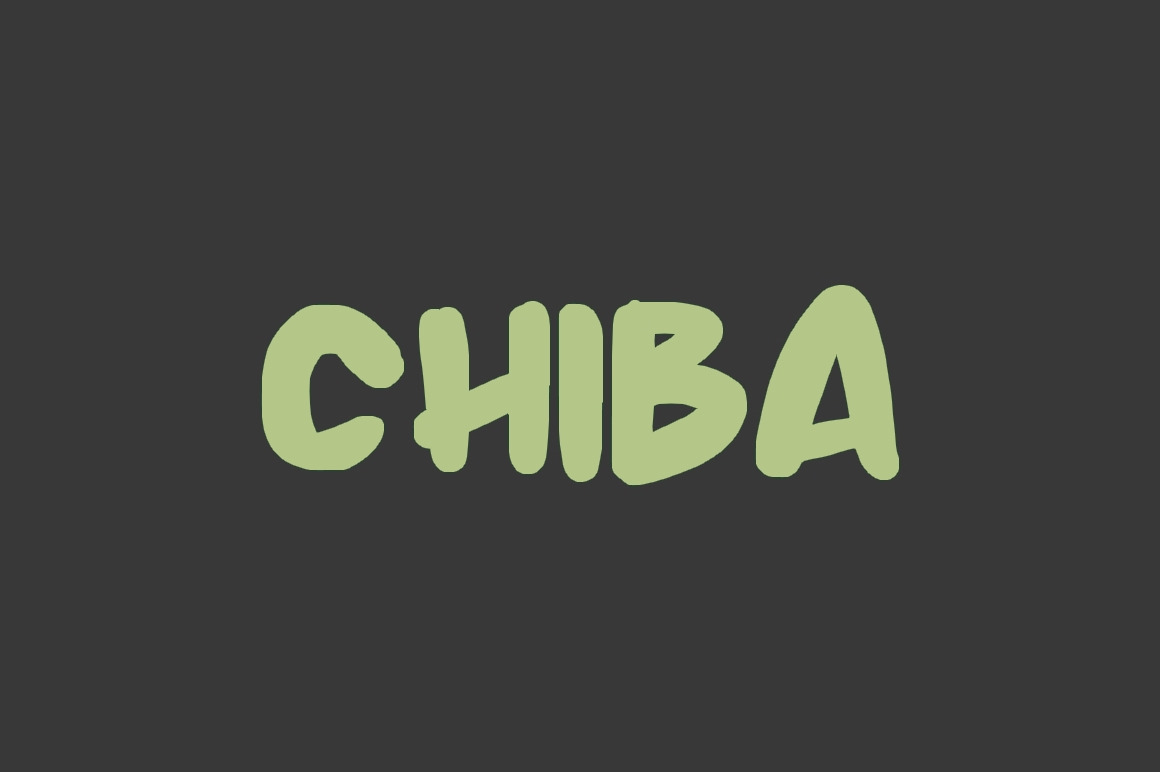
SALE 50% | Chiba - Modern Cool Font
Introducing Chiba, a funny and chill font. Cool and modern. Inspired in graffiti tags covering the wals and metallic curtains on the Chiba City. As usual was made with love.